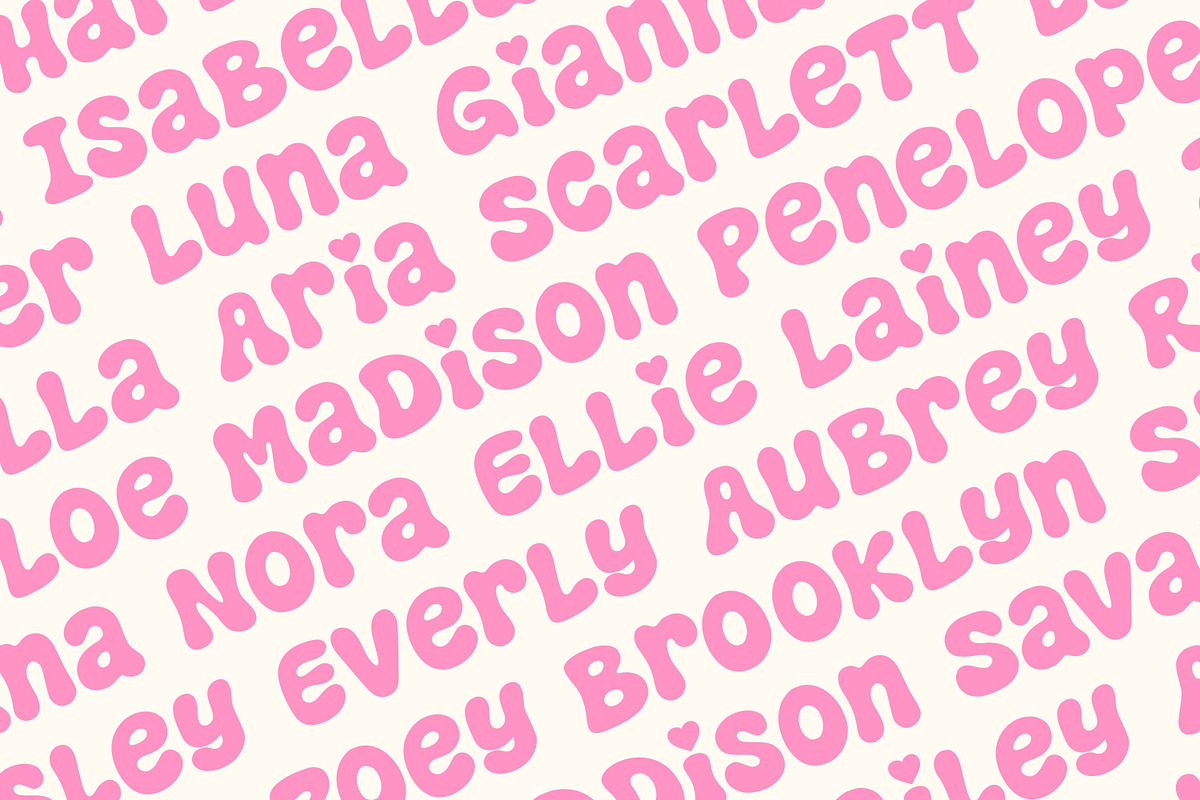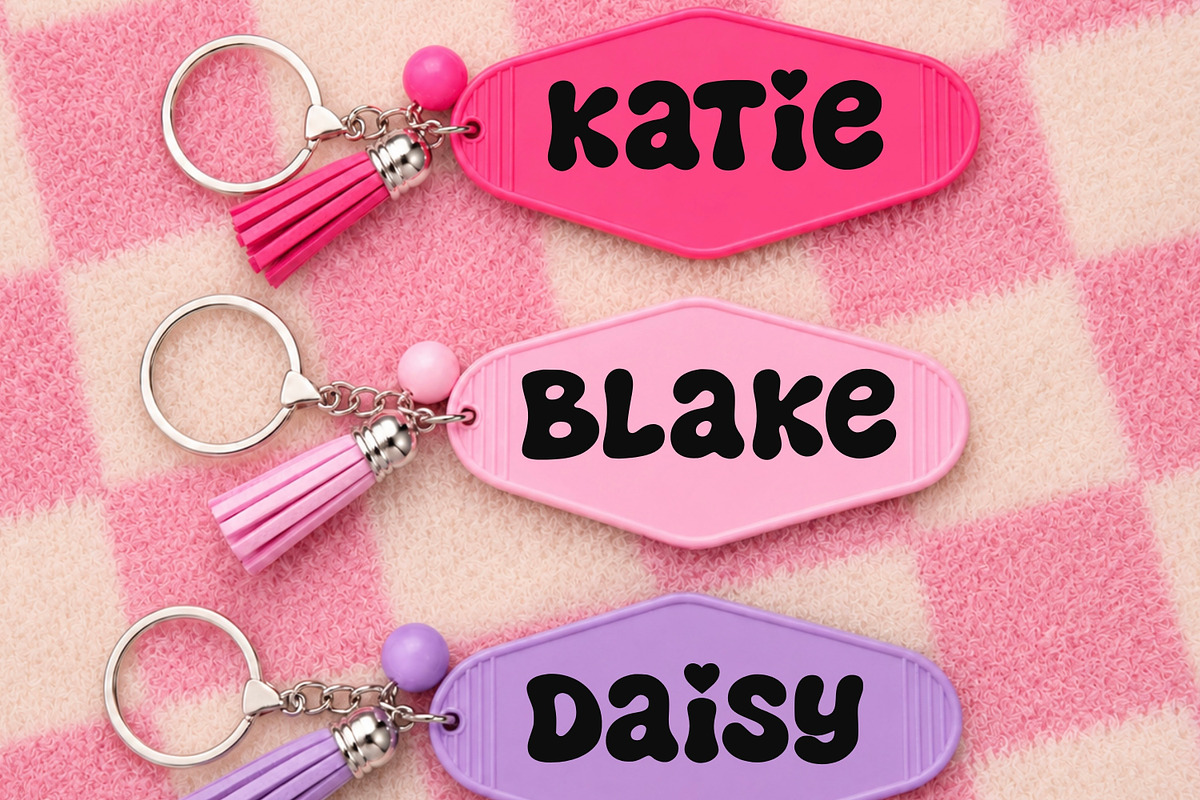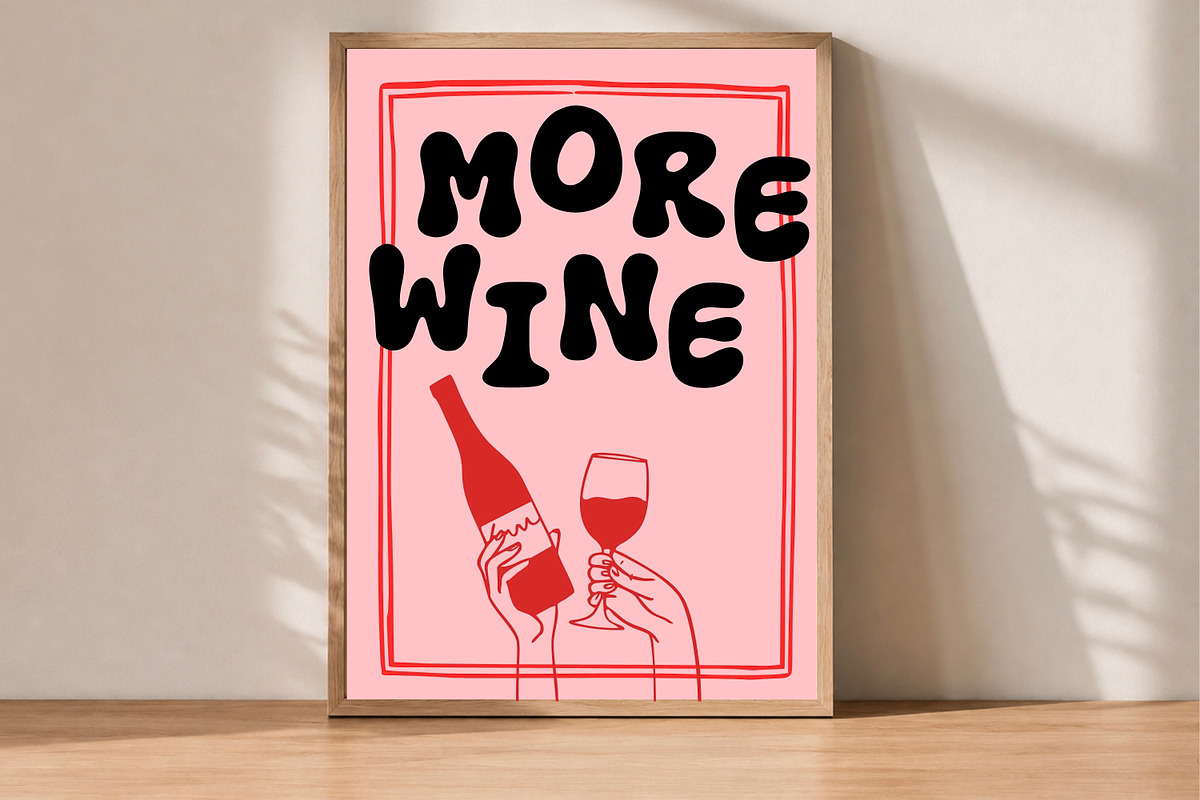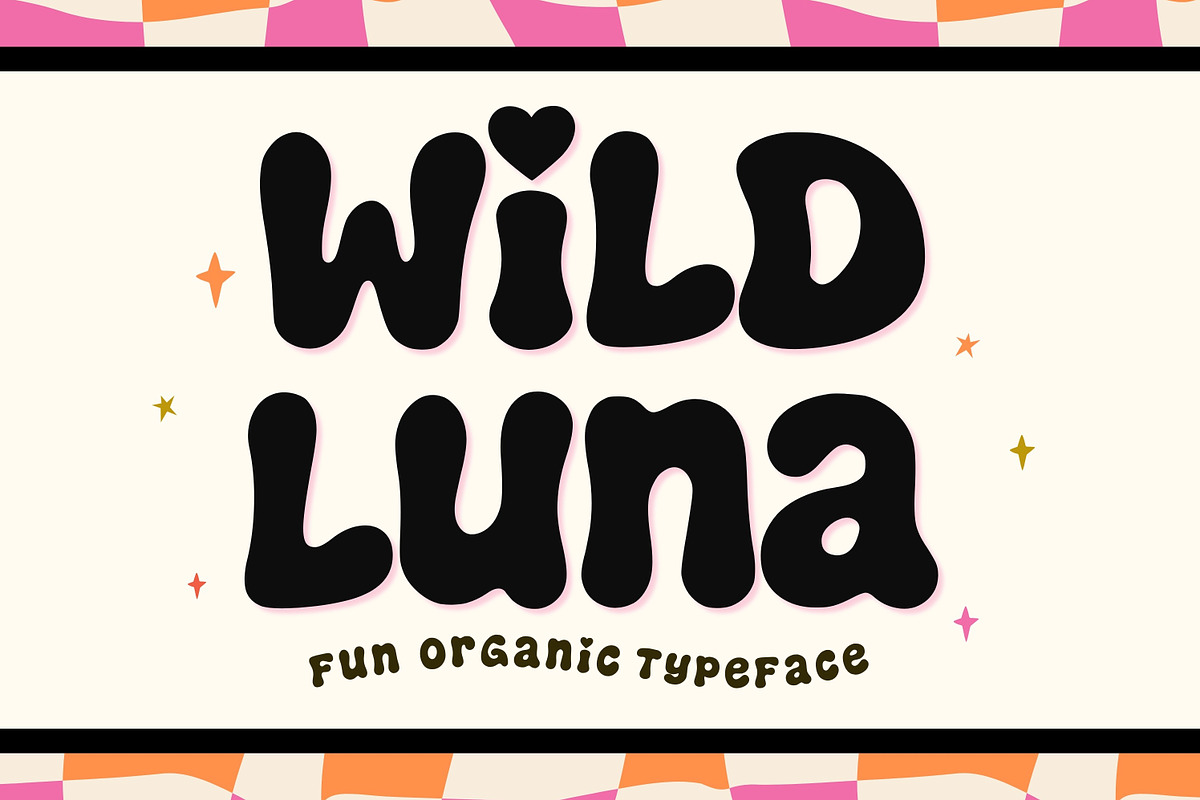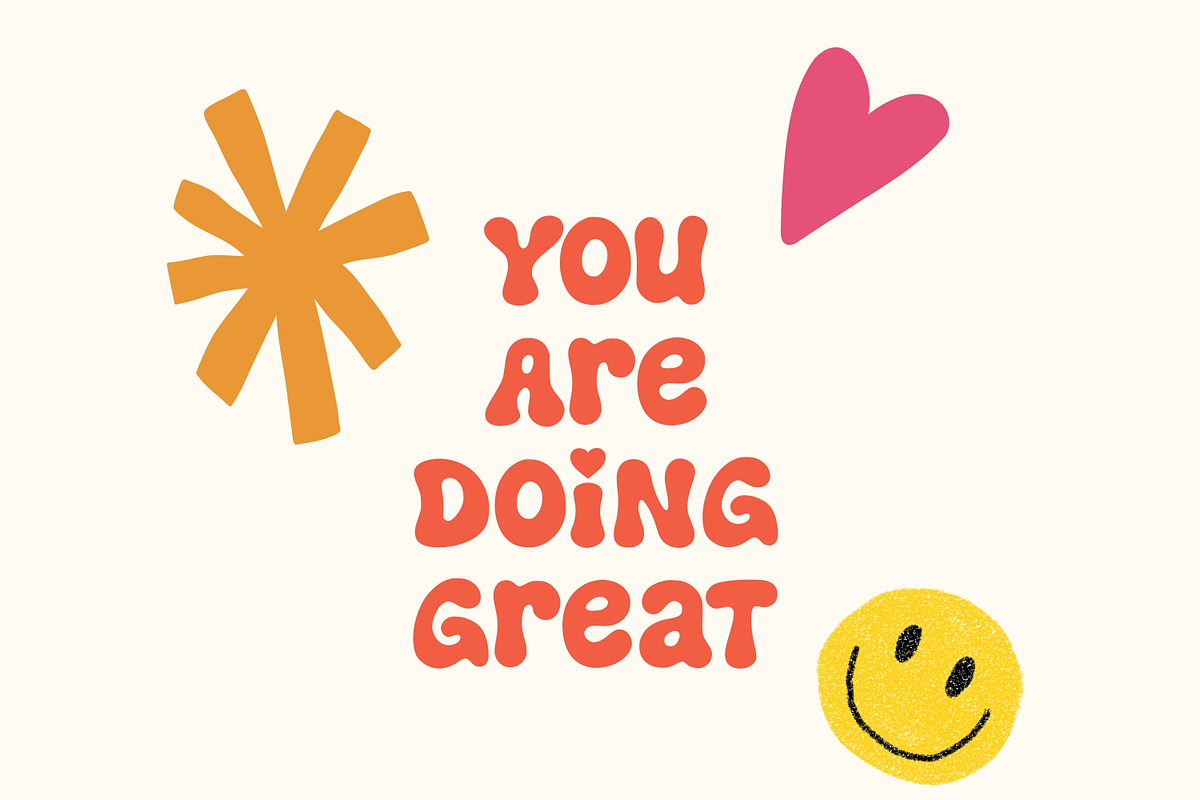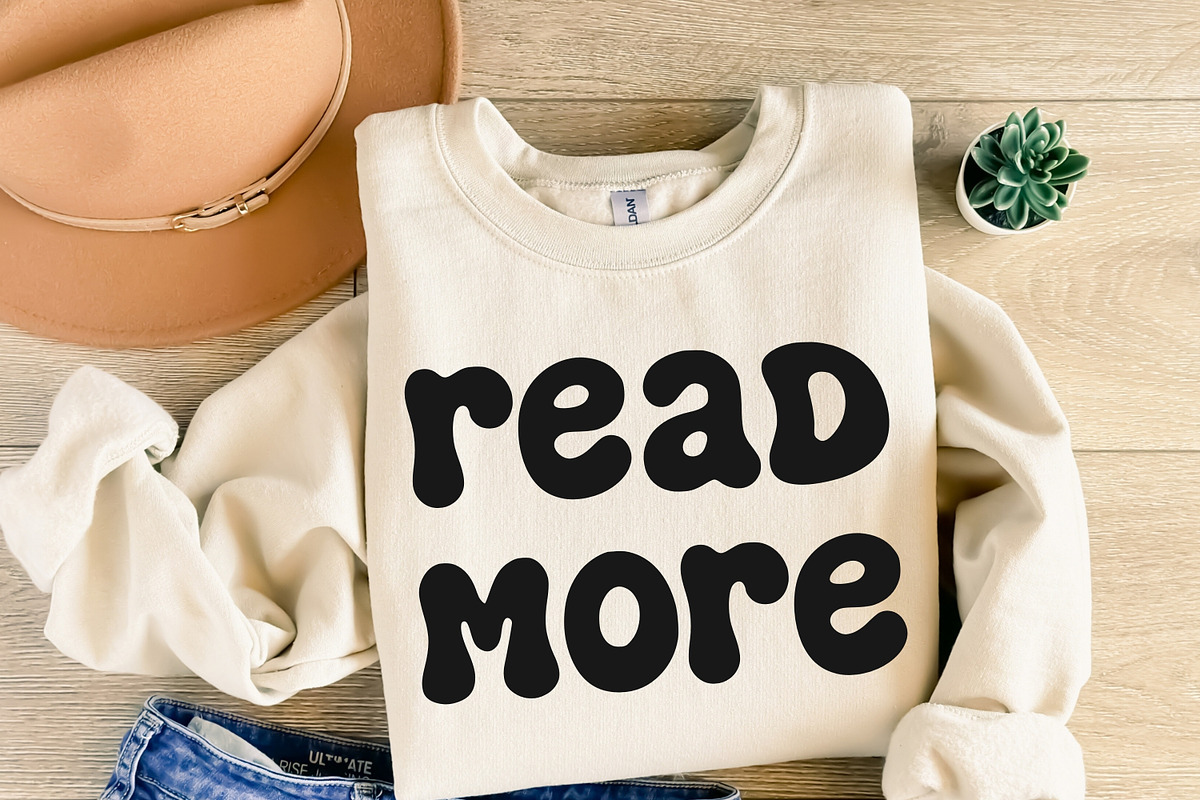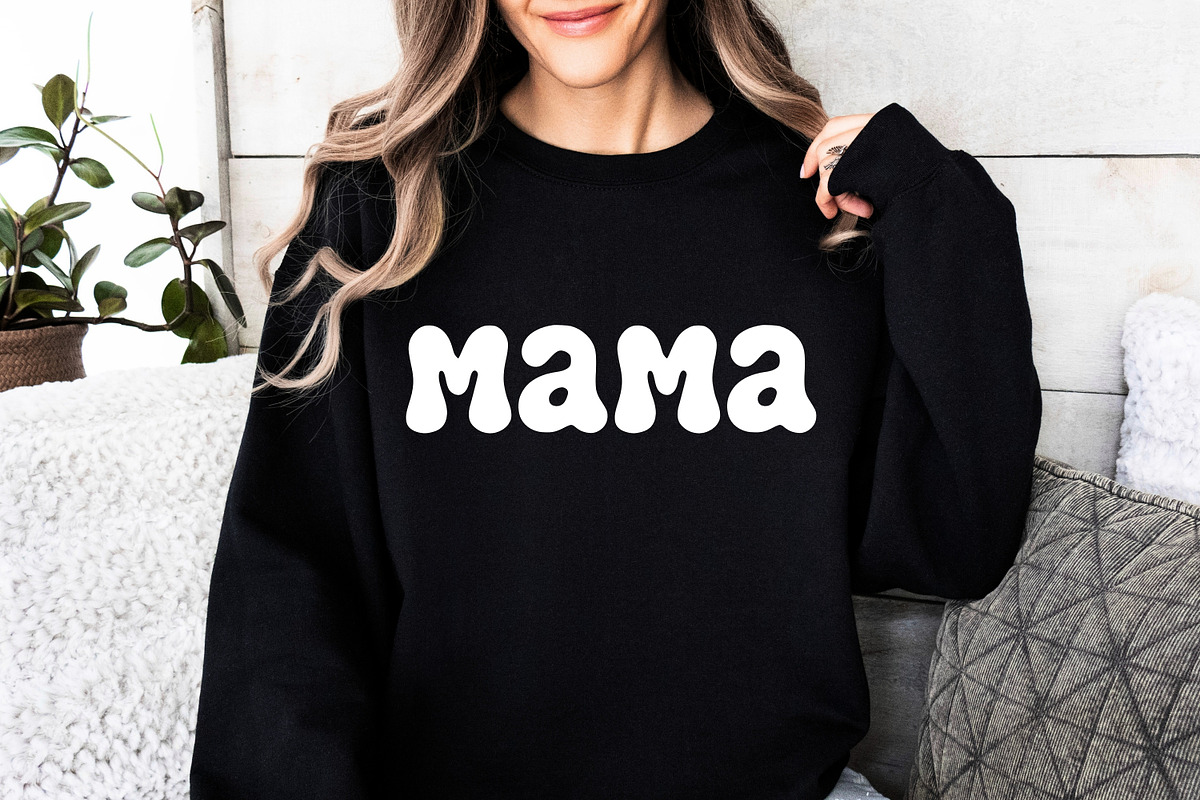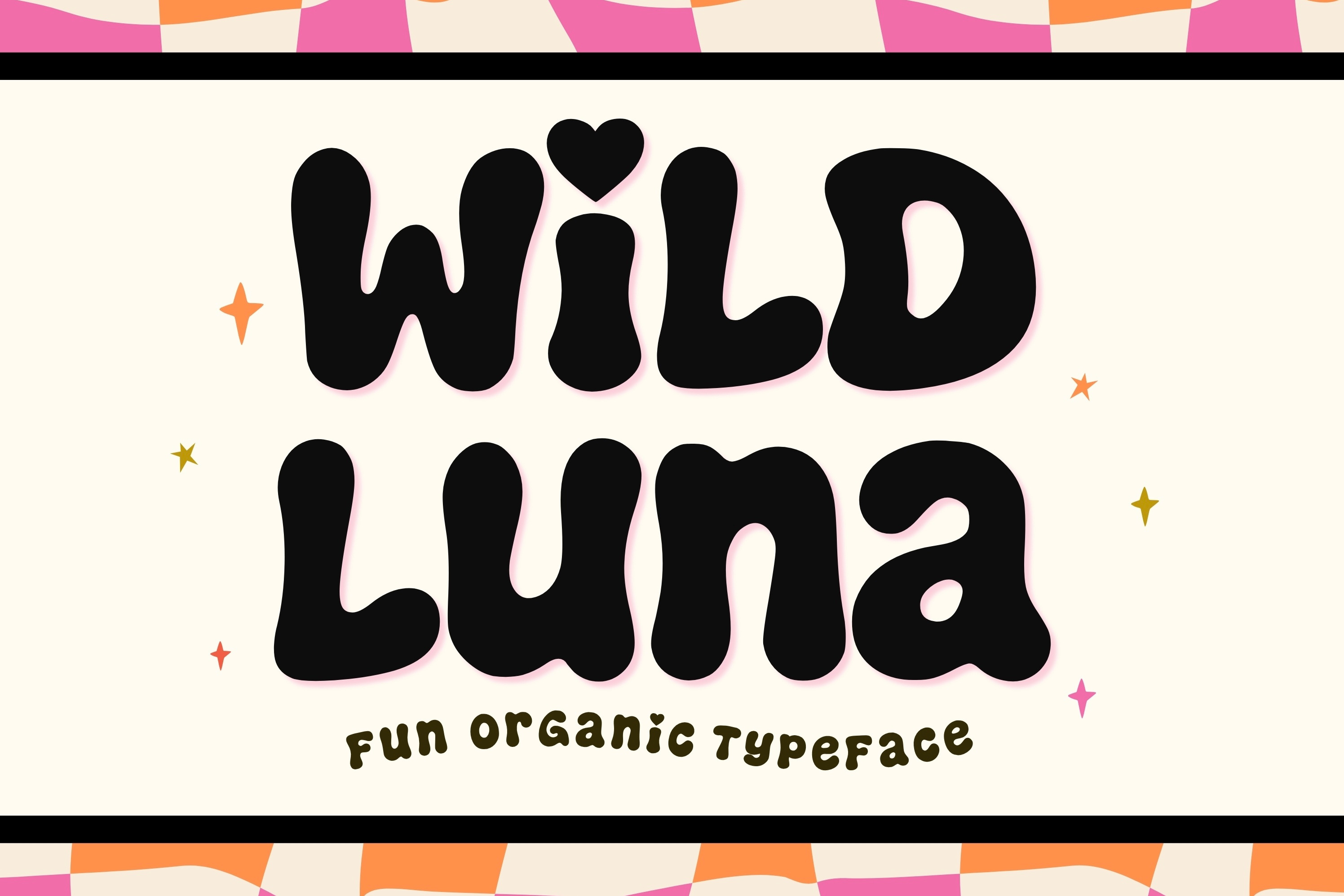
A fun and organic font
WILD LUNA FONT
Add fun to your creative projects with this cute and quirky hand-drawn font. Featuring playful, imperfect letter shapes and a charming whimsical feel, this font is perfect for creating designs that stand out.
This fun font is designed to bring a happy, playful, and quirky touch to your creations. Its charming handmade look makes it perfect for designs that need a little extra personality!
• Uppercase letters
• Lowercase letters
• Numbers
• Punctuation
• ^ = i